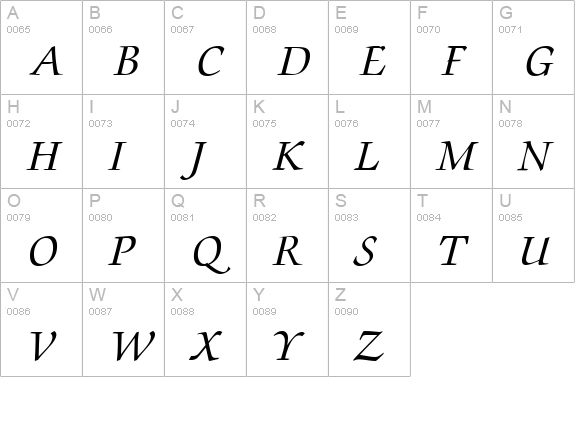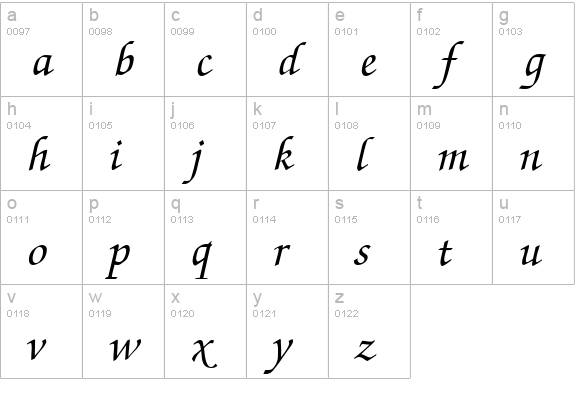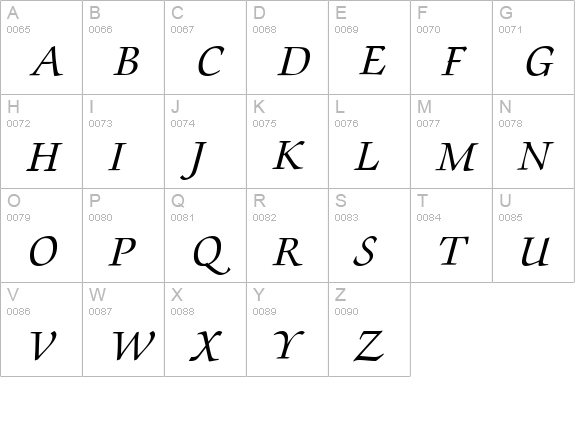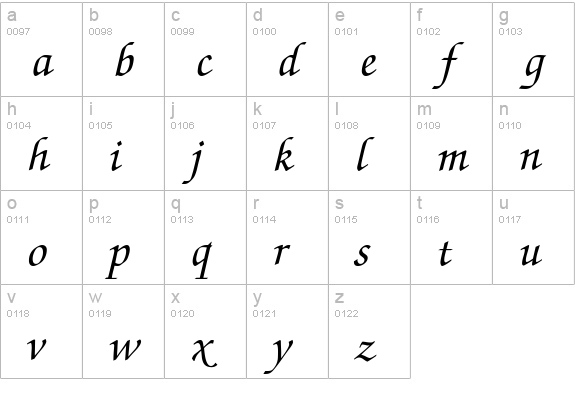
ZabriskieScriptSwash-BoldItalic Font Details
ZabriskieScriptSwash-BoldItalic is a stunning and elegant font that exudes sophistication and style. With its bold and italic swash design, this typeface adds a touch of flair to any project or design. Perfect for invitations, posters, and branding materials, ZabriskieScriptSwash-BoldItalic is sure to make a statement. The best part is that ZabriskieScriptSwash-BoldItalic is offered for free! You can easily download this beautiful font at FontsMarket.com and elevate your creative projects with its unique charm and versatility. Don't miss out on the opportunity to enhance your designs with this exquisite typeface – download ZabriskieScriptSwash-BoldItalic today!